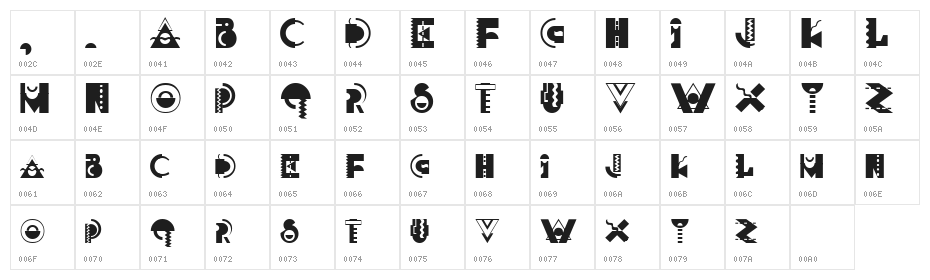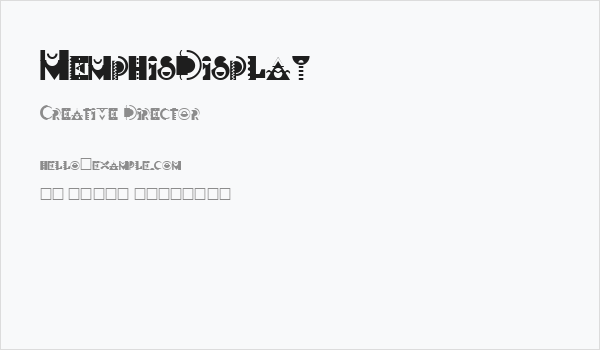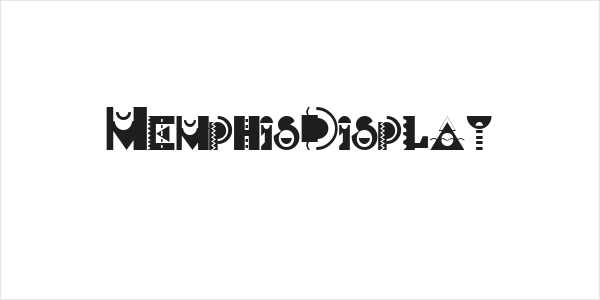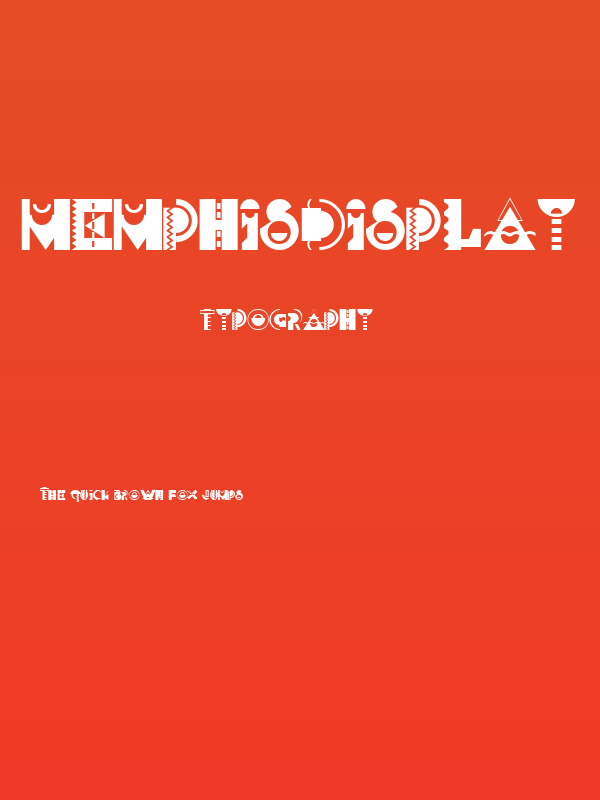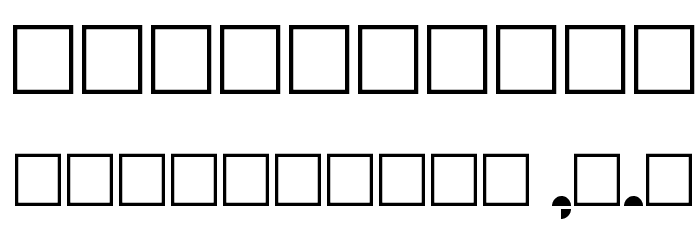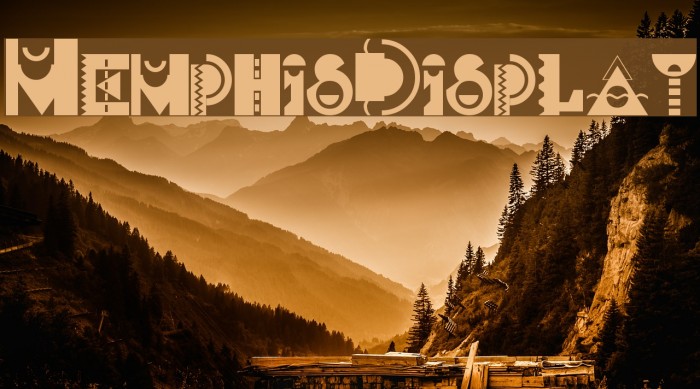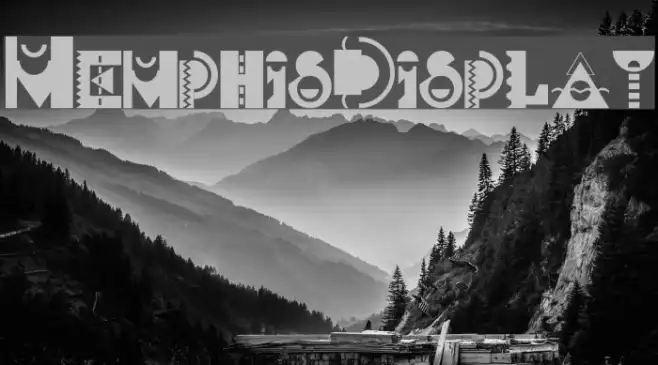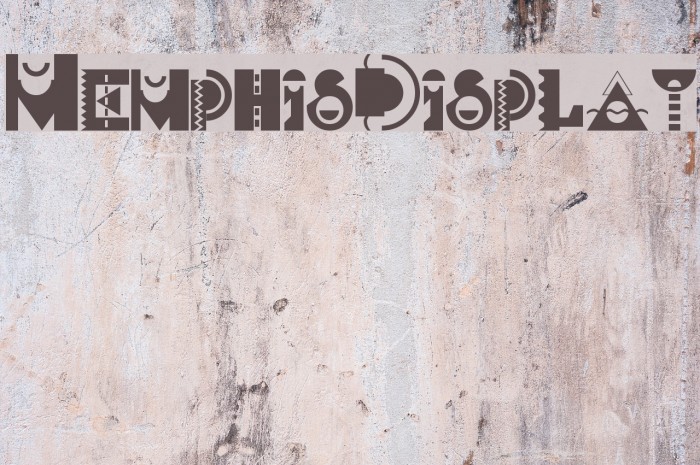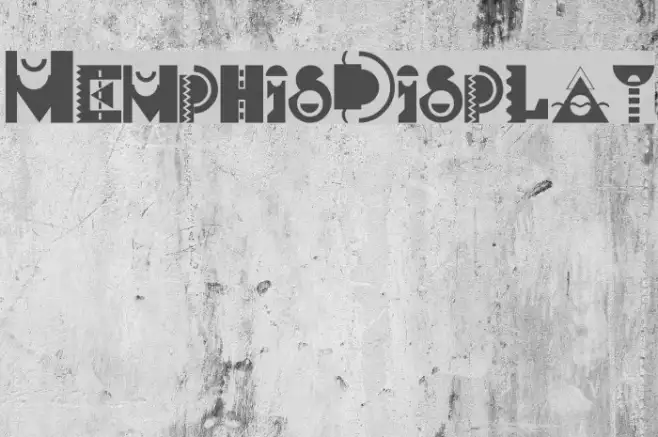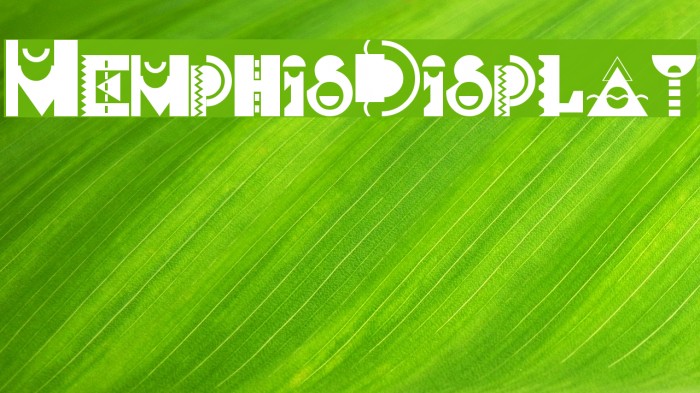
MemphisDisplay Font
MemphisDisplay Description
This font is a bold and striking display typeface characterized by its geometric shapes and high contrast. Each letter is uniquely designed with a combination of sharp angles, curves, and decorative elements, making it highly distinctive and eye-catching. The uppercase letters feature a variety of patterns and motifs, including zigzags, circles, and triangles, which contribute to its playful and artistic appearance. The font lacks lowercase letters and numerals, focusing instead on a strong visual impact through its uppercase alphabet. This typeface is perfect for projects that require a bold statement and a modern, artistic flair.
| Proposed Projects | Ideal for posters, album covers, branding, and any project requiring a bold, artistic statement. |